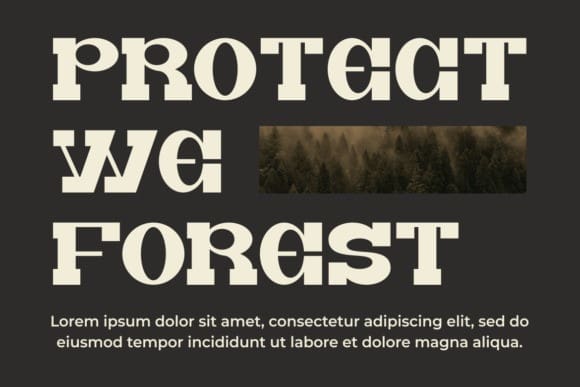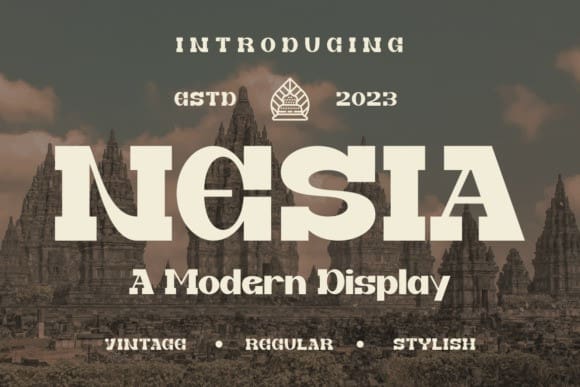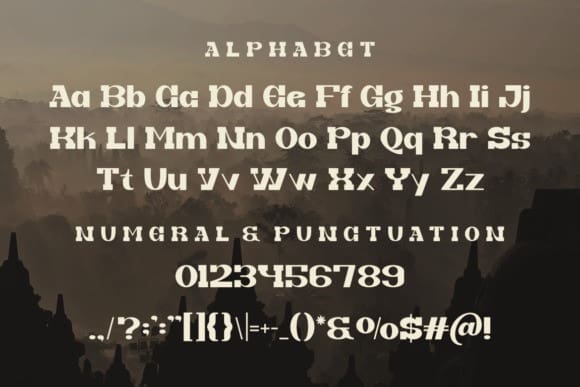
Nesia Font
Nesia Font is a sleek and modern display font designed for contemporary impact. With clean lines and a stylish flair, Nesia adds a touch of sophistication to your projects. Whether it’s for titles, headers, or standout text, this font effortlessly blends modern aesthetics with readability. Nesia is your go-to choice for a fresh and stylish look, ensuring your design stands out with simplicity and modern elegance.